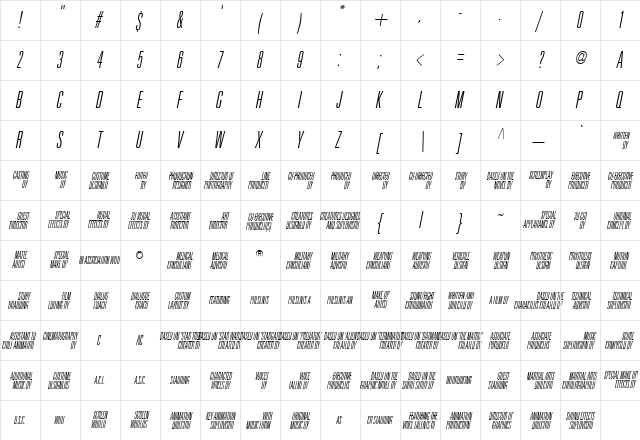
Universal Accreditation Italic
Design Context for Universal Accreditation Typeface
Universal Accreditation takes a measured approach to typography — its balanced proportions and neutral character make it a reliable workhorse for both digital and print work. The dynamic lean of this cut emphasises speed and emphasis in any layout.
Pro Tip: Use Universal Accreditation for emphasis, pull quotes, and subheadings where its slanted energy can add rhythm to the layout.